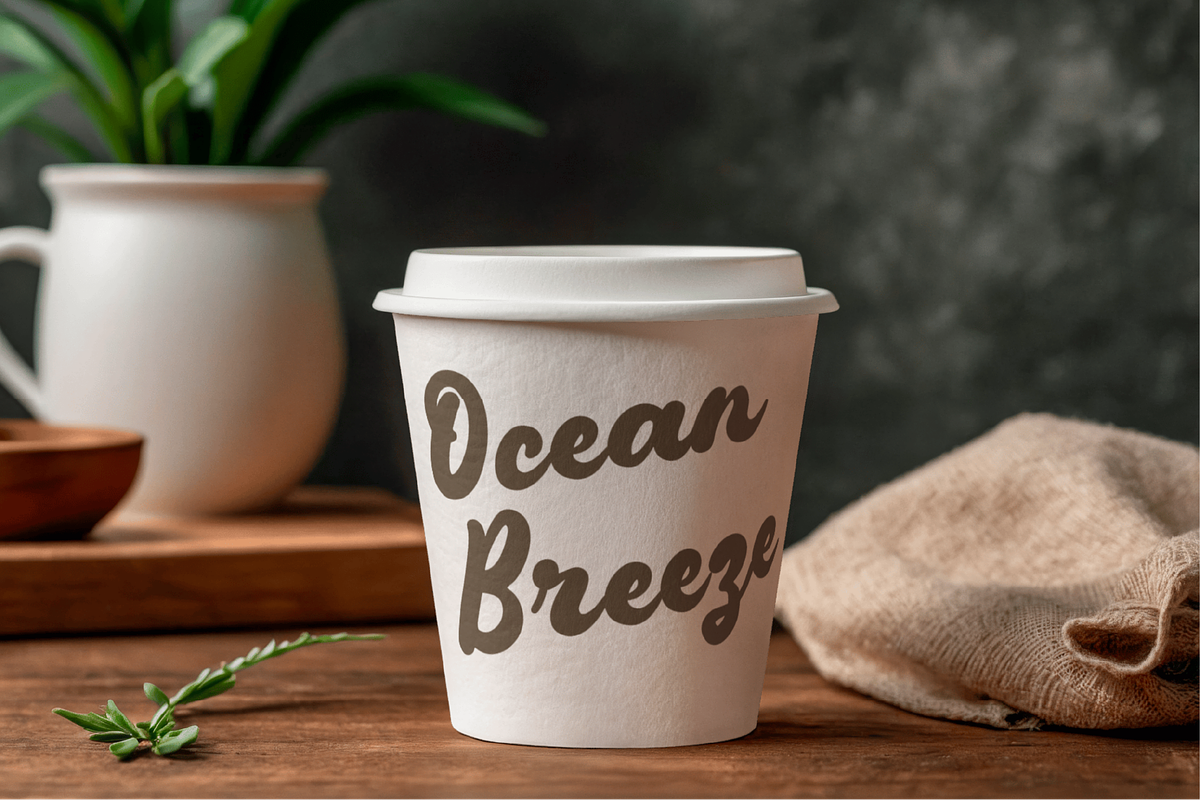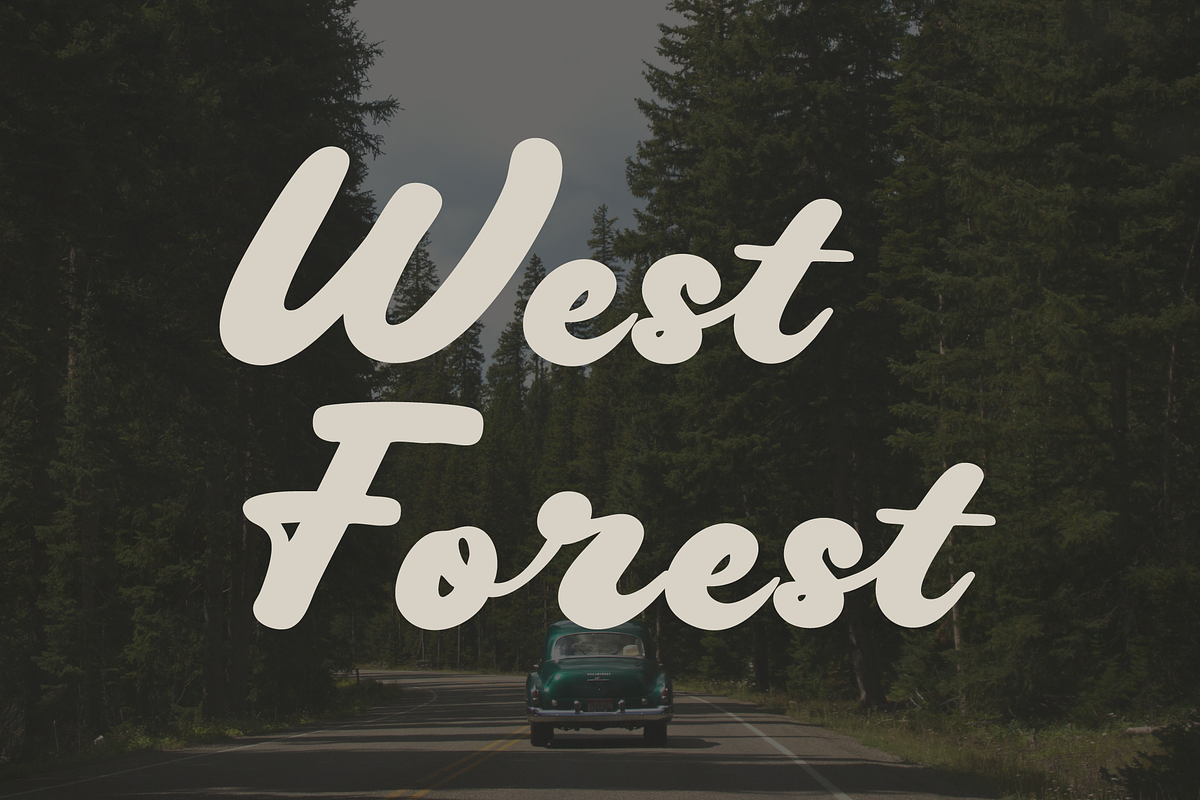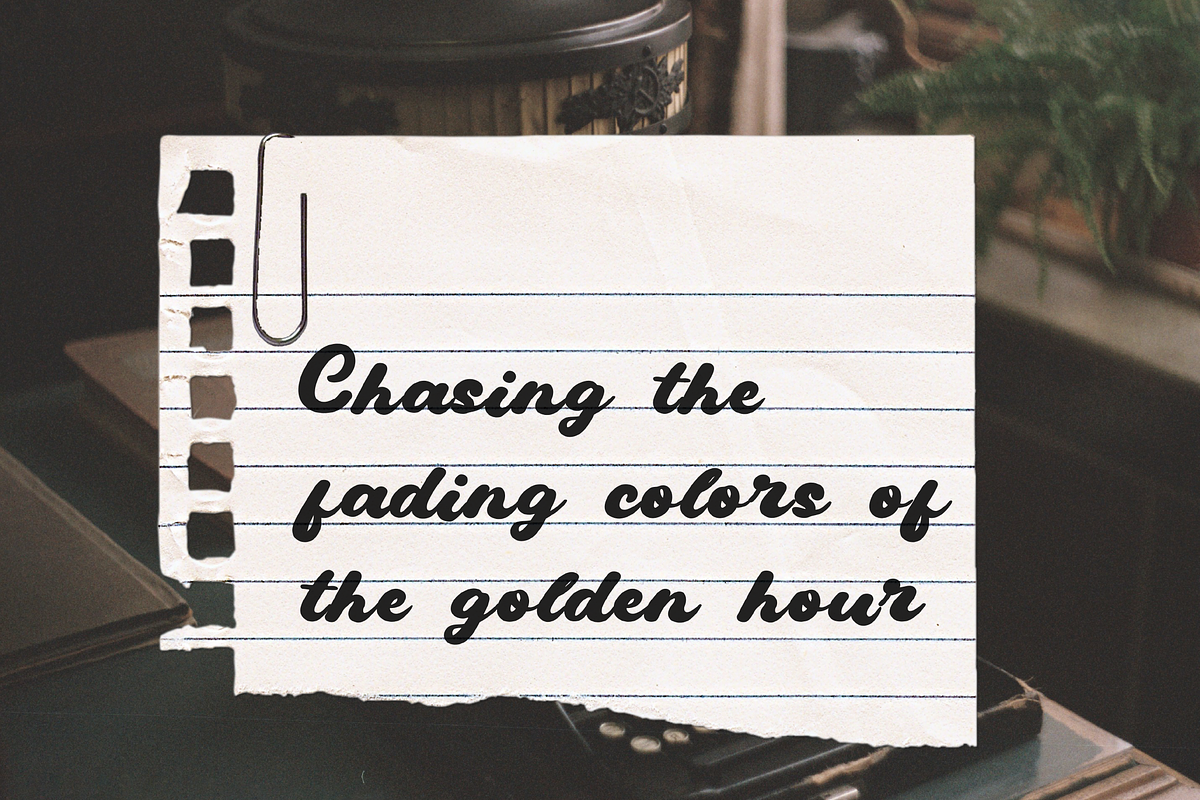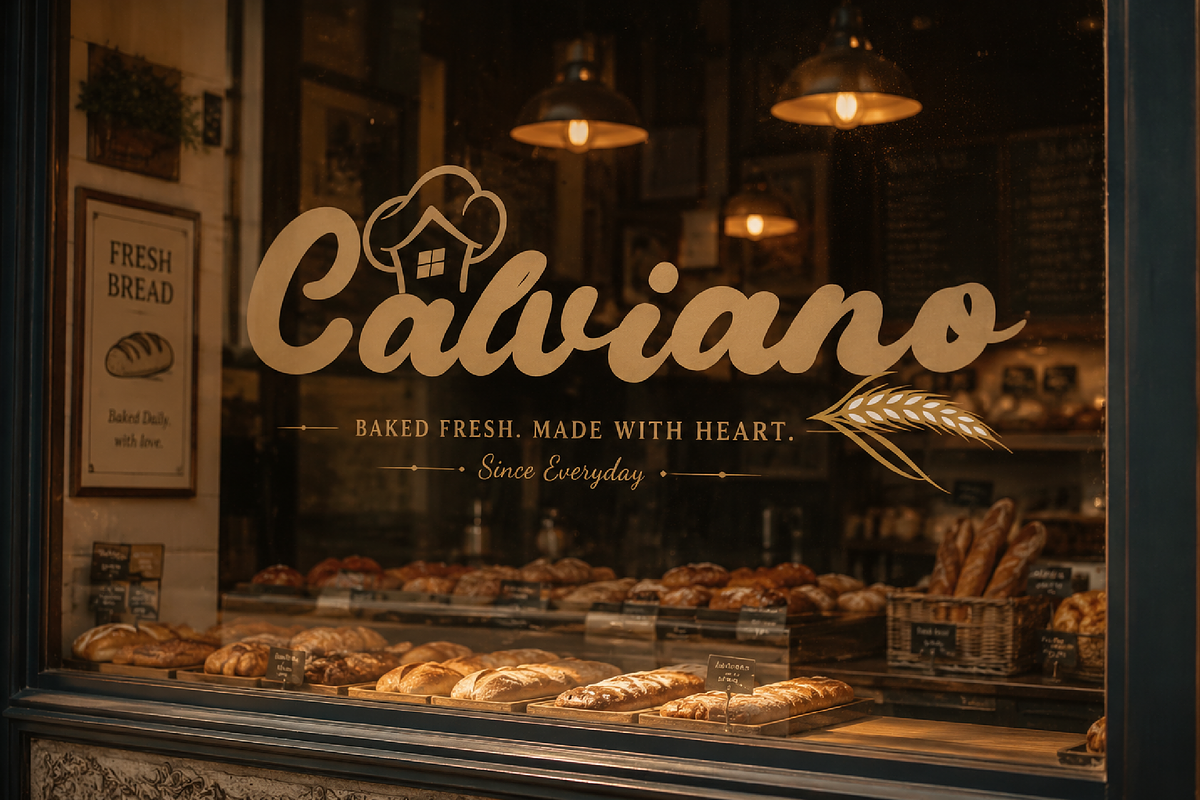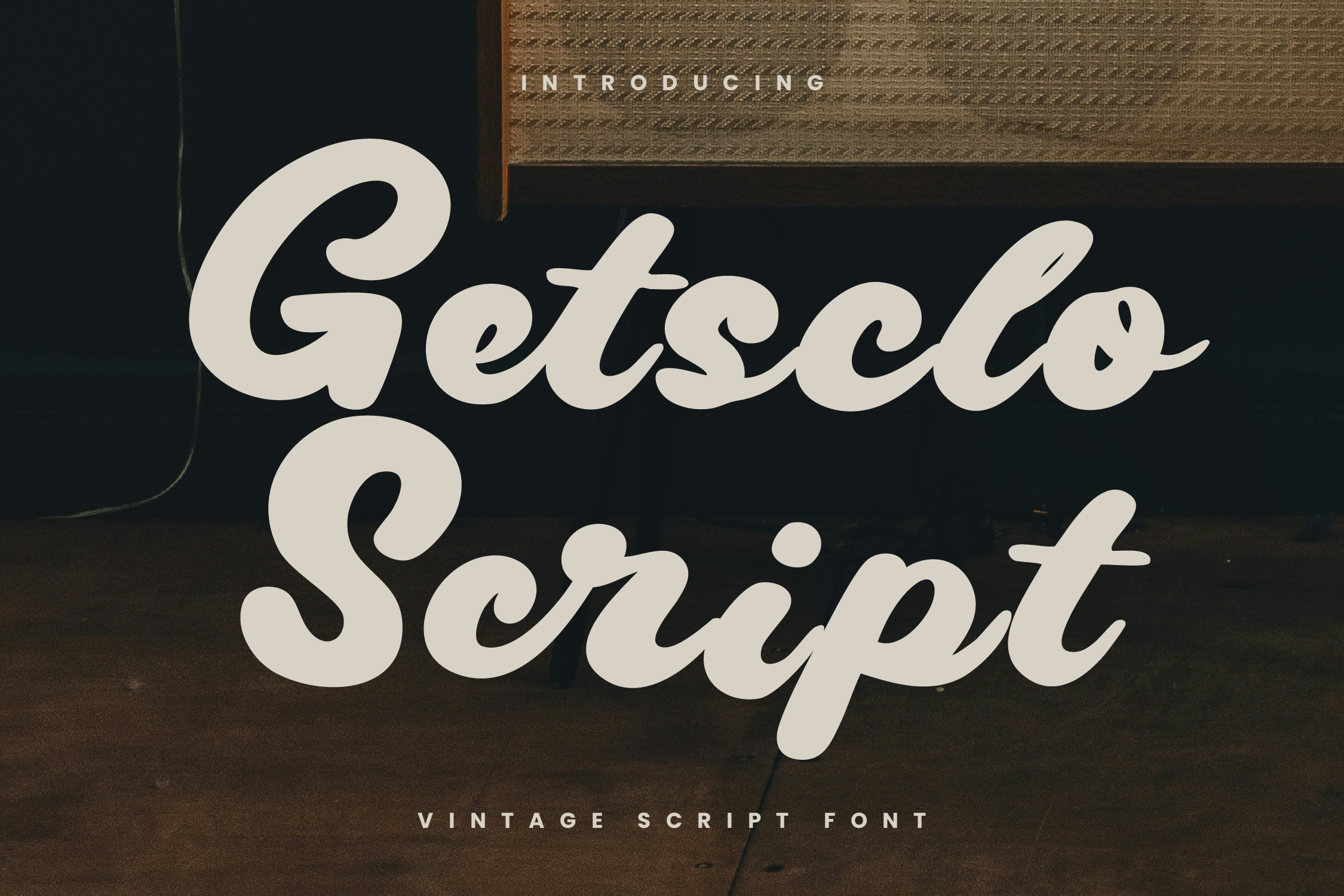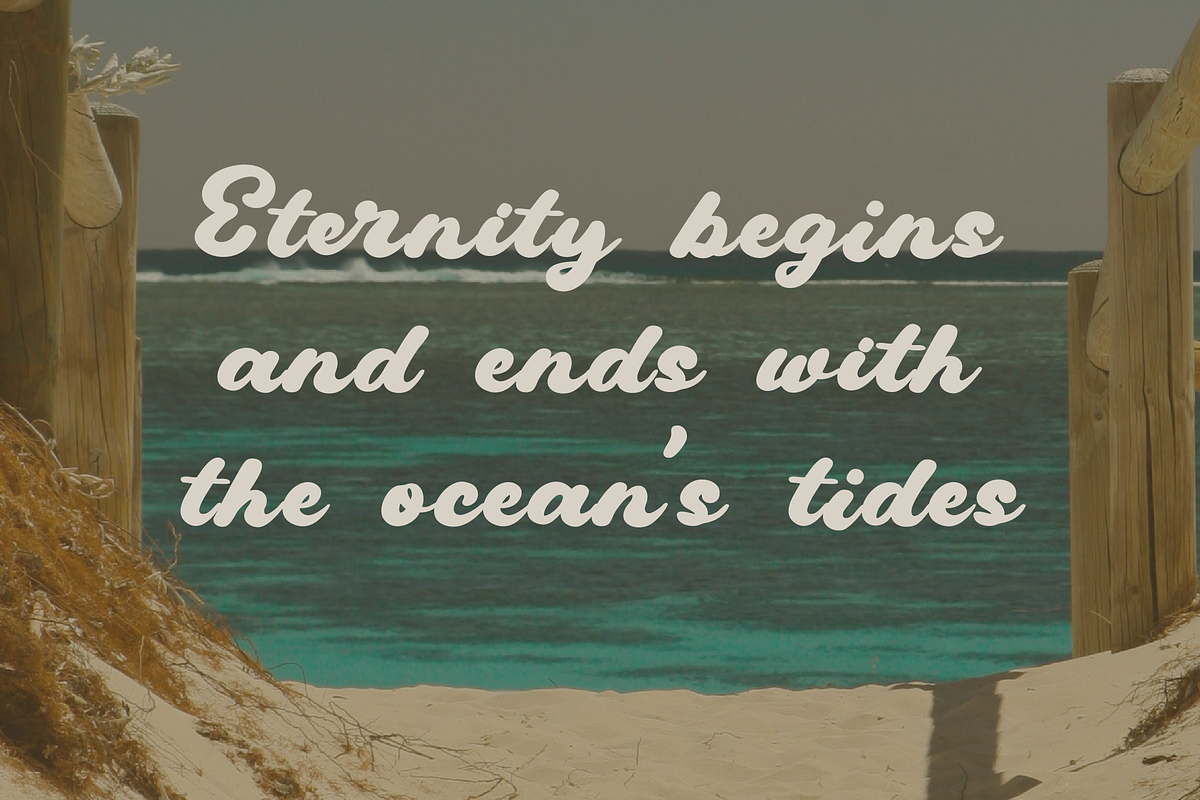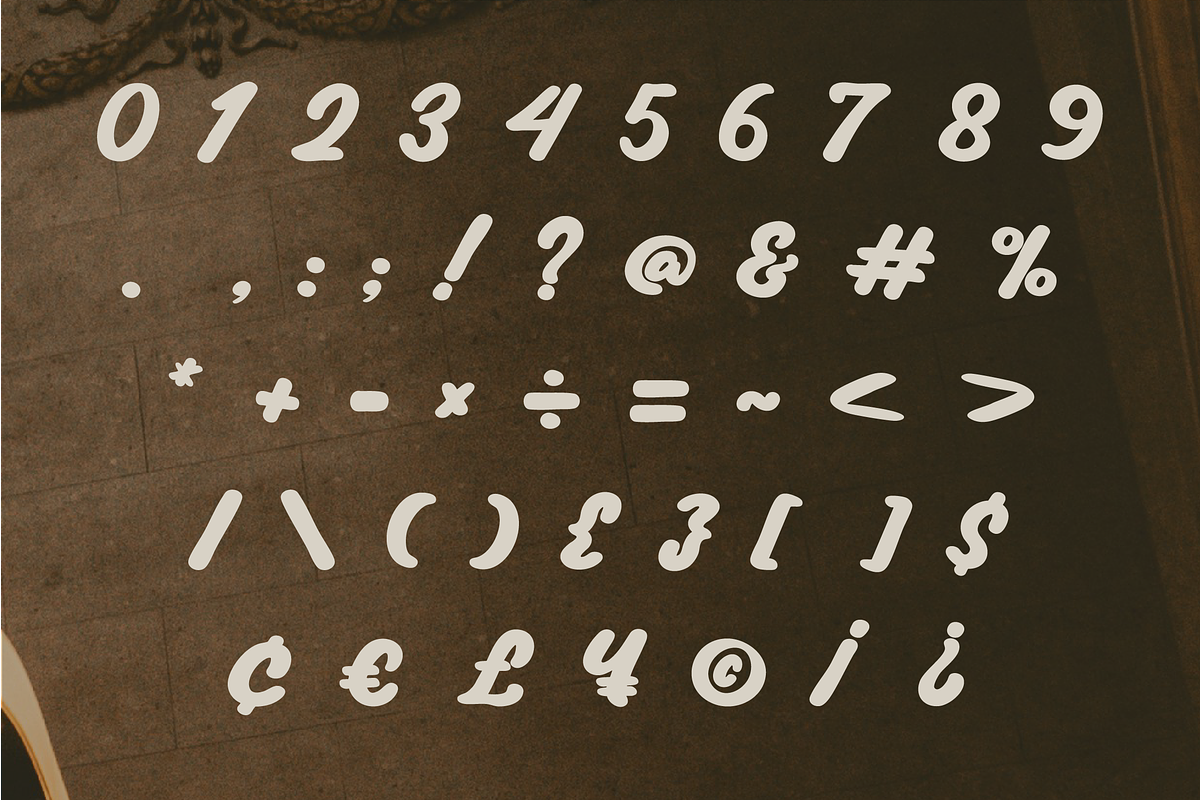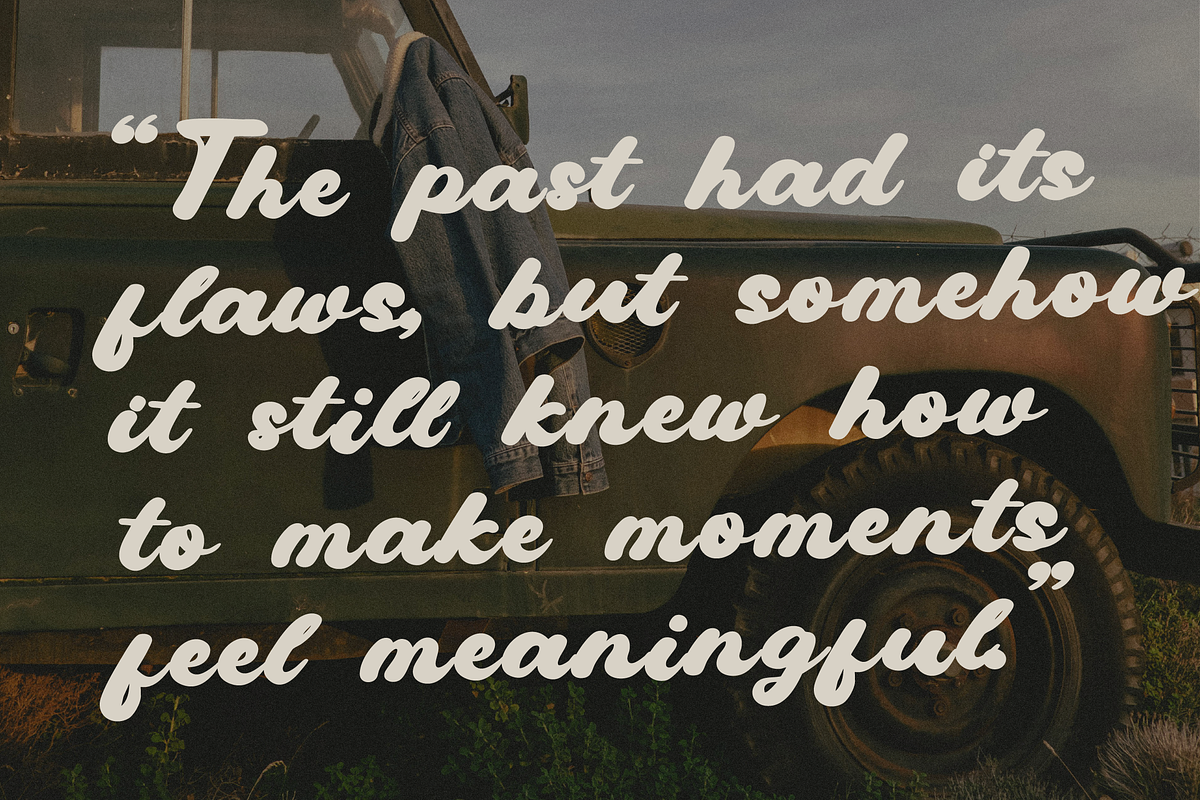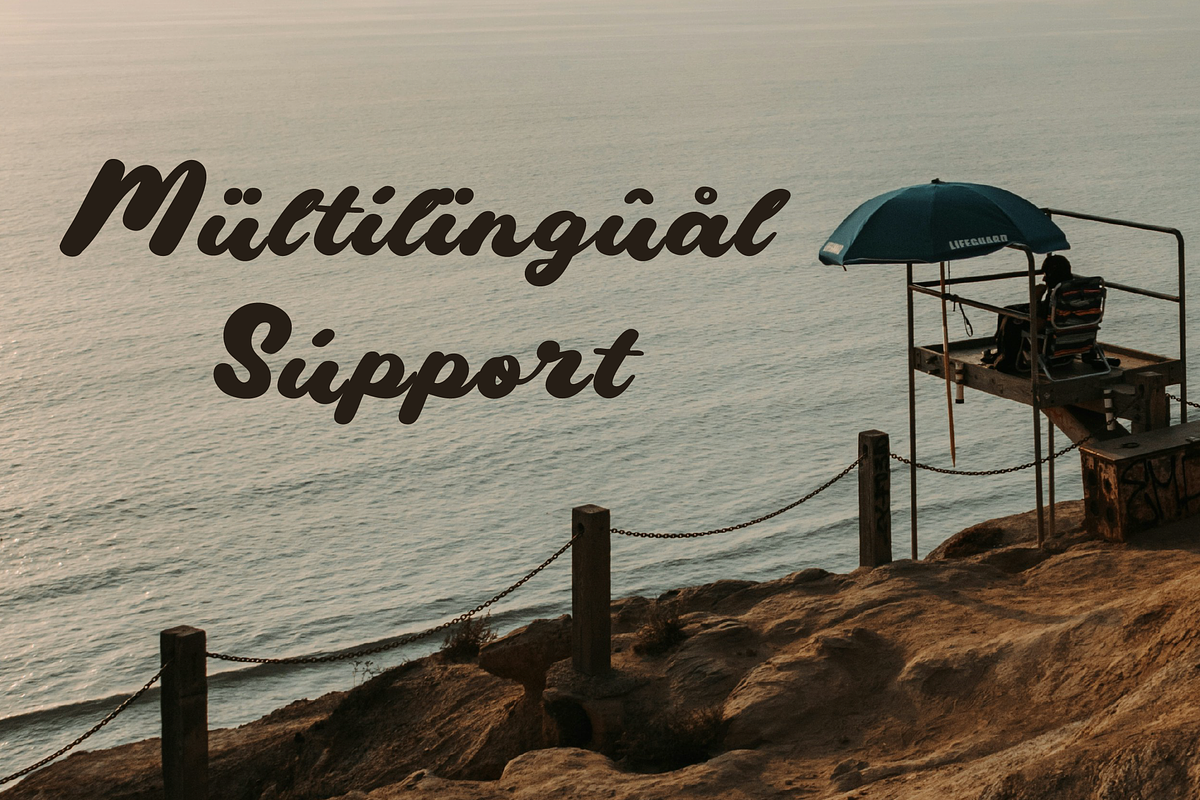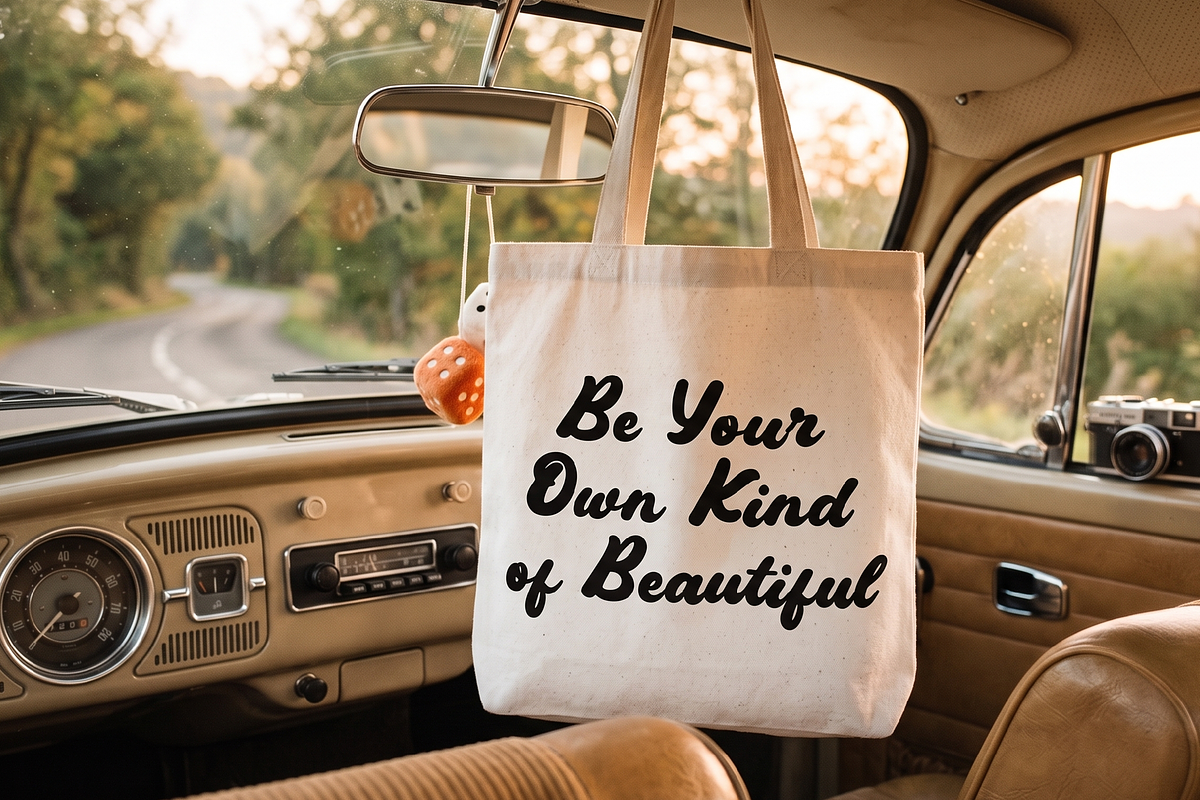
Gestclo - Vintage Script Fonts
Introduce your latest design project with Getsclo Script, a bold, smooth, and charming vintage retro script font. Inspired by classic storefront signage and mid-century typography, Getsclo Script brings a warm, nostalgic, and authentic feel to your creative endeavors. Its flowing curves and strong character presence make it highly legible while effortlessly grabbing attention.
Whether you are designing a logo for an artisanal bakery, crafting eye-catching window displays, or creating vintage-inspired food packaging, Getsclo Script delivers a professional, timeless, and elegant aesthetic.
Logos & Brand Identity
Storefront Signage (Cafes, Bakeries, Barbershops)
Product Packaging & Labels
Posters & Event Flyers
Book Covers & Editorial Titles
Greeting Cards & Invitations
Menu Designs
Uppercase & Lowercase: Well-balanced and dynamic characters.
Numerals & Punctuation: Complete standard set for all your typing needs.
Multilingual Support: Accented characters to support multiple languages.